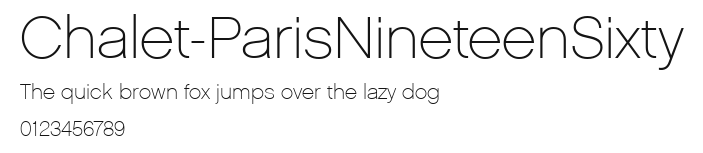
Chalet-ParisNineteenSixty Preview
• Font Name: Chalet-ParisNineteenSixty
• Designer: House Industries
About Chalet-ParisNineteenSixty.ttf
Chalet-ParisNineteenSixty.ttf is a modern, elegant sans-serif font designed for ultimate readability and visual harmony. Perfect for branding, headlines, web design, and print materials.